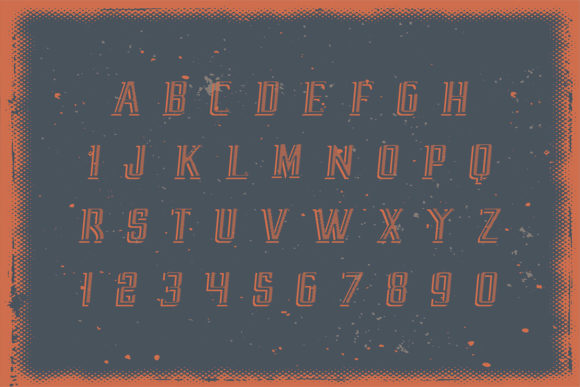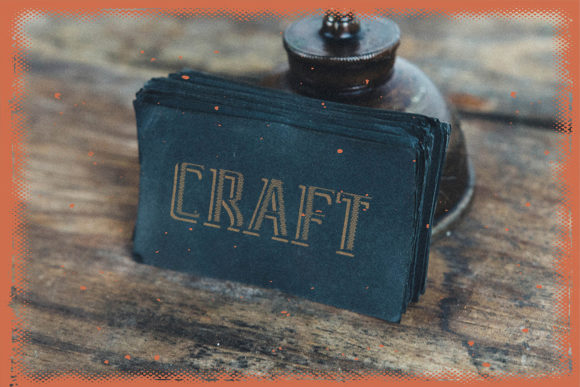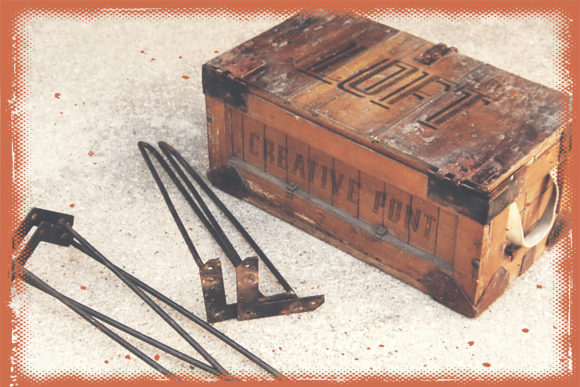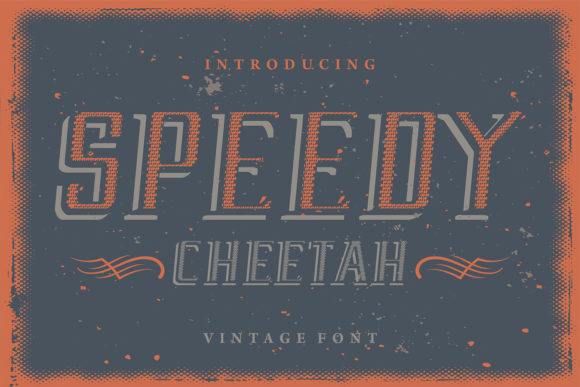
Speedy Cheetah Font
The Speedy Cheetah is a vintage display typeface. It has a striking look and a great readability, which can be used for various designing needs